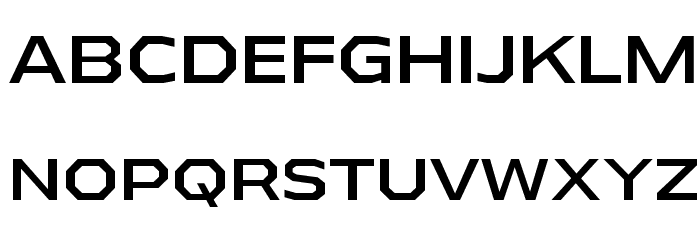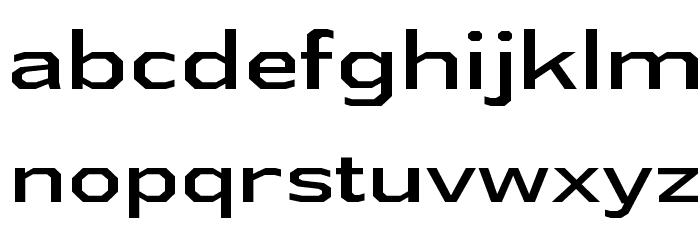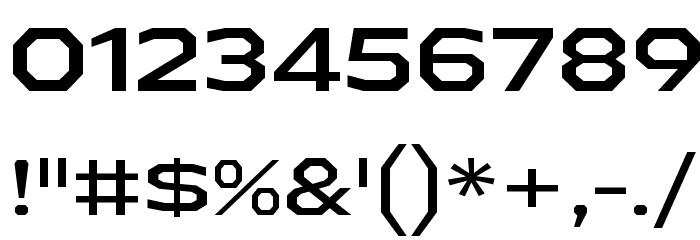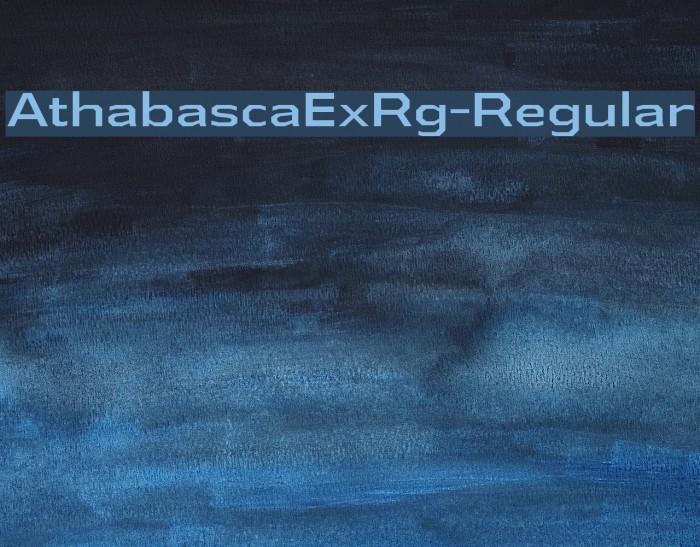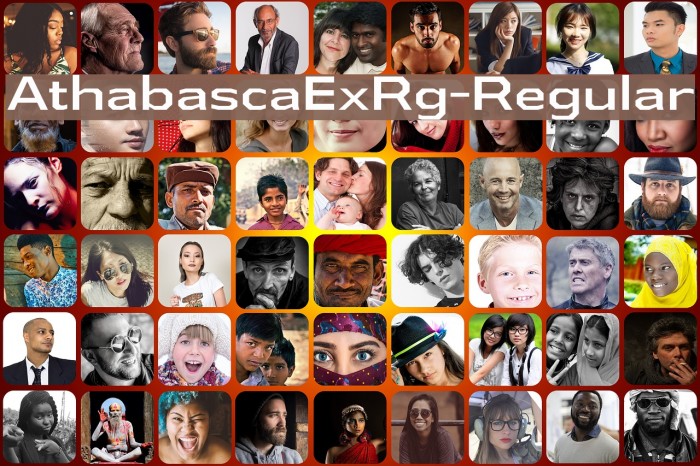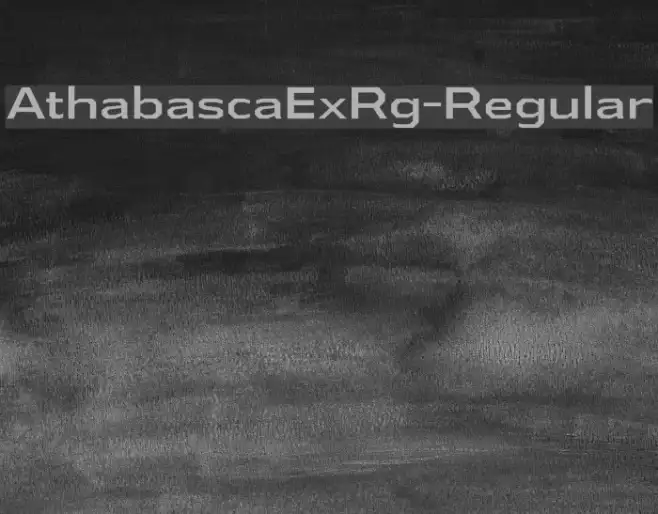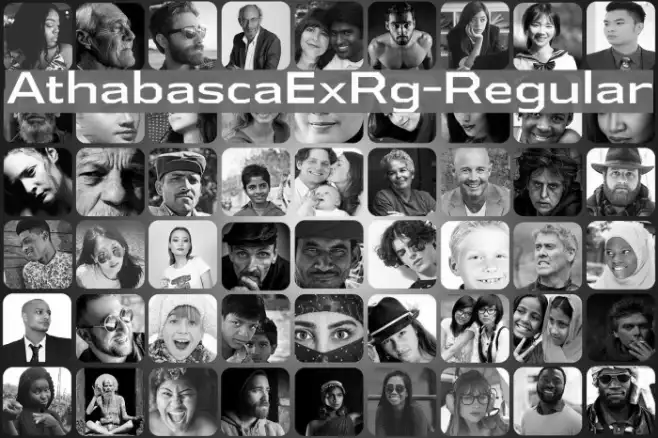
AthabascaExRg-Regular Font
This font features a modern and geometric design with clean, straight lines and sharp angles. The uppercase letters are bold and commanding, while the lowercase letters maintain a consistent style with slightly rounded edges that soften the overall appearance. The numerals are clear and easily distinguishable, making them suitable for various applications. Special characters are well-defined and integrate seamlessly with the rest of the typeface. The uniformity in stroke width across all characters gives it a cohesive and professional look, ideal for contemporary design projects.
A modern, geometric font with clean lines and consistent stroke width.
- Proposed Projects: Ideal for branding, advertising, digital interfaces, and editorial design where a modern and professional appearance is desired.